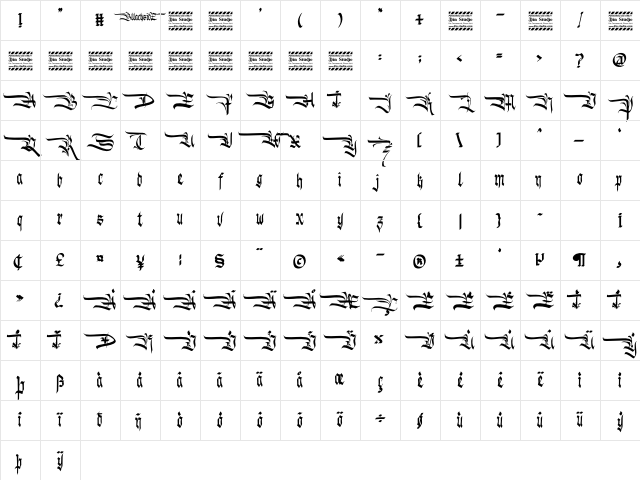
Blackside Personal Use Regular Free Font
Blackside Personal Use Regular
Designer: Donis Miftahudin
Design Context for Blackside Personal Use
Blackside Personal Use is a composed and adaptable typeface that performs quietly and consistently across a wide range of design contexts.